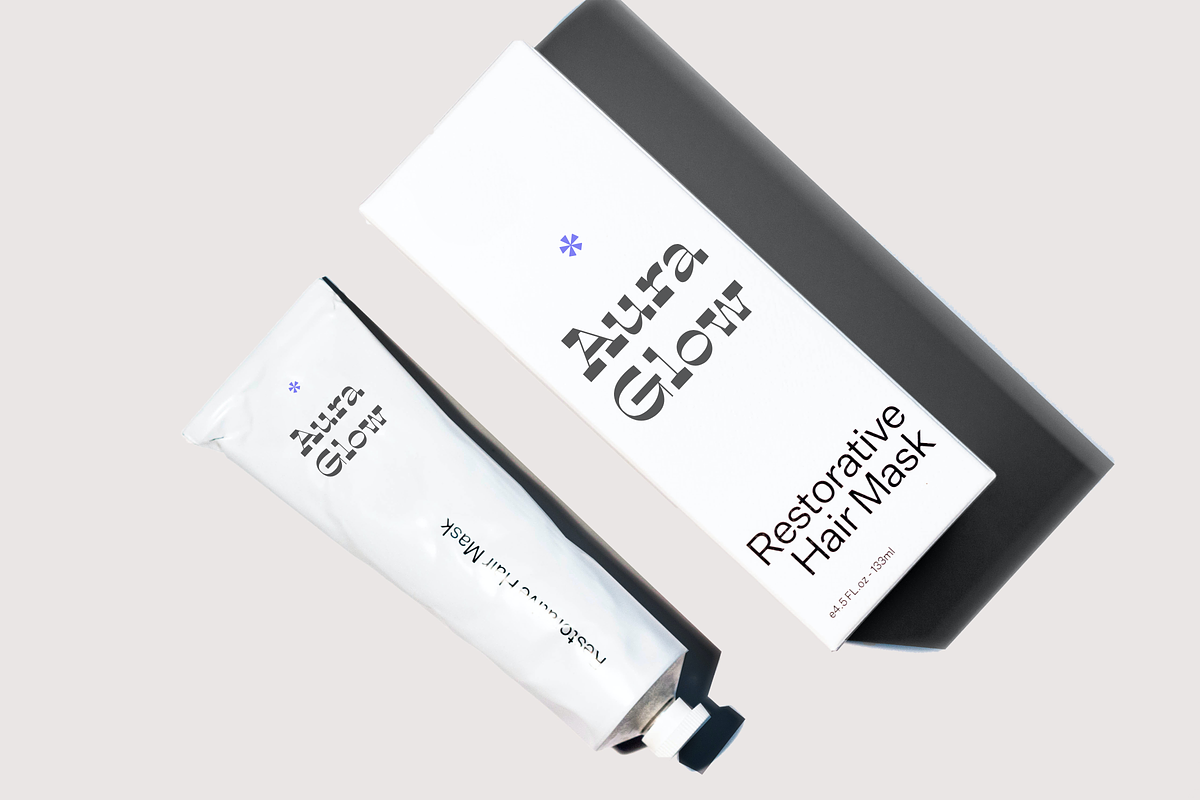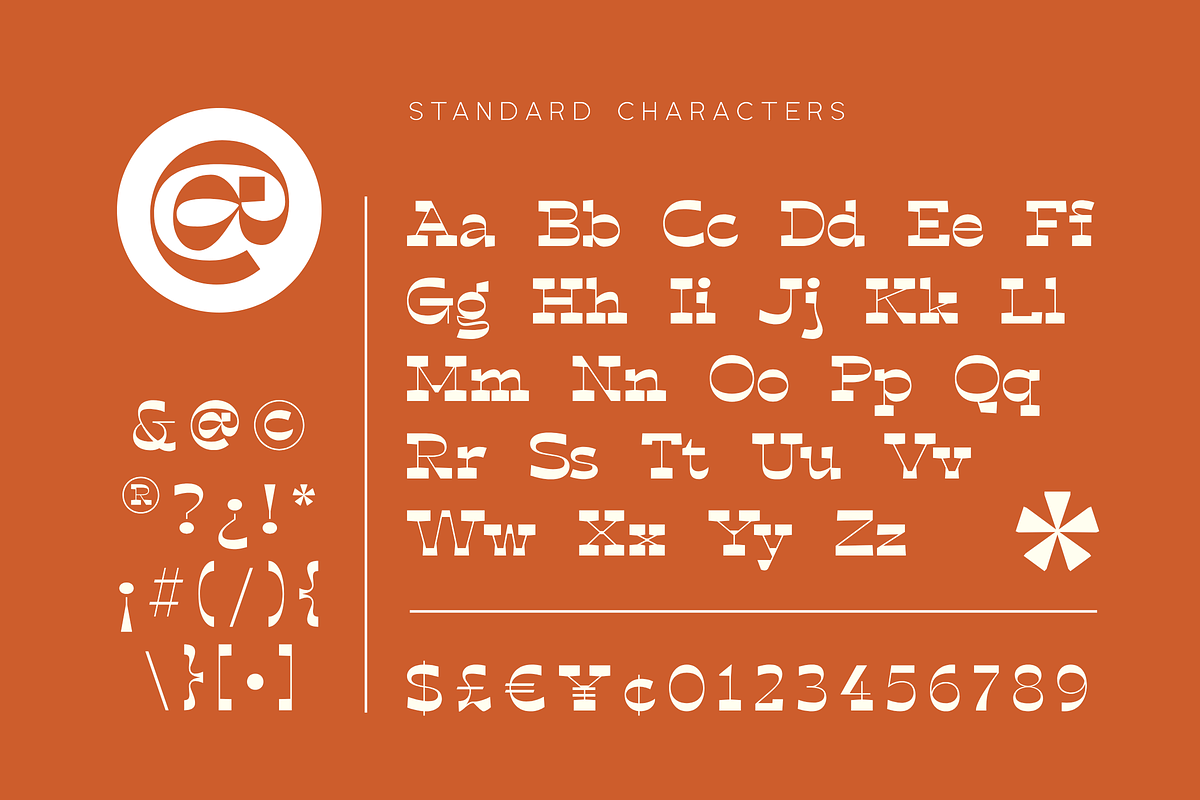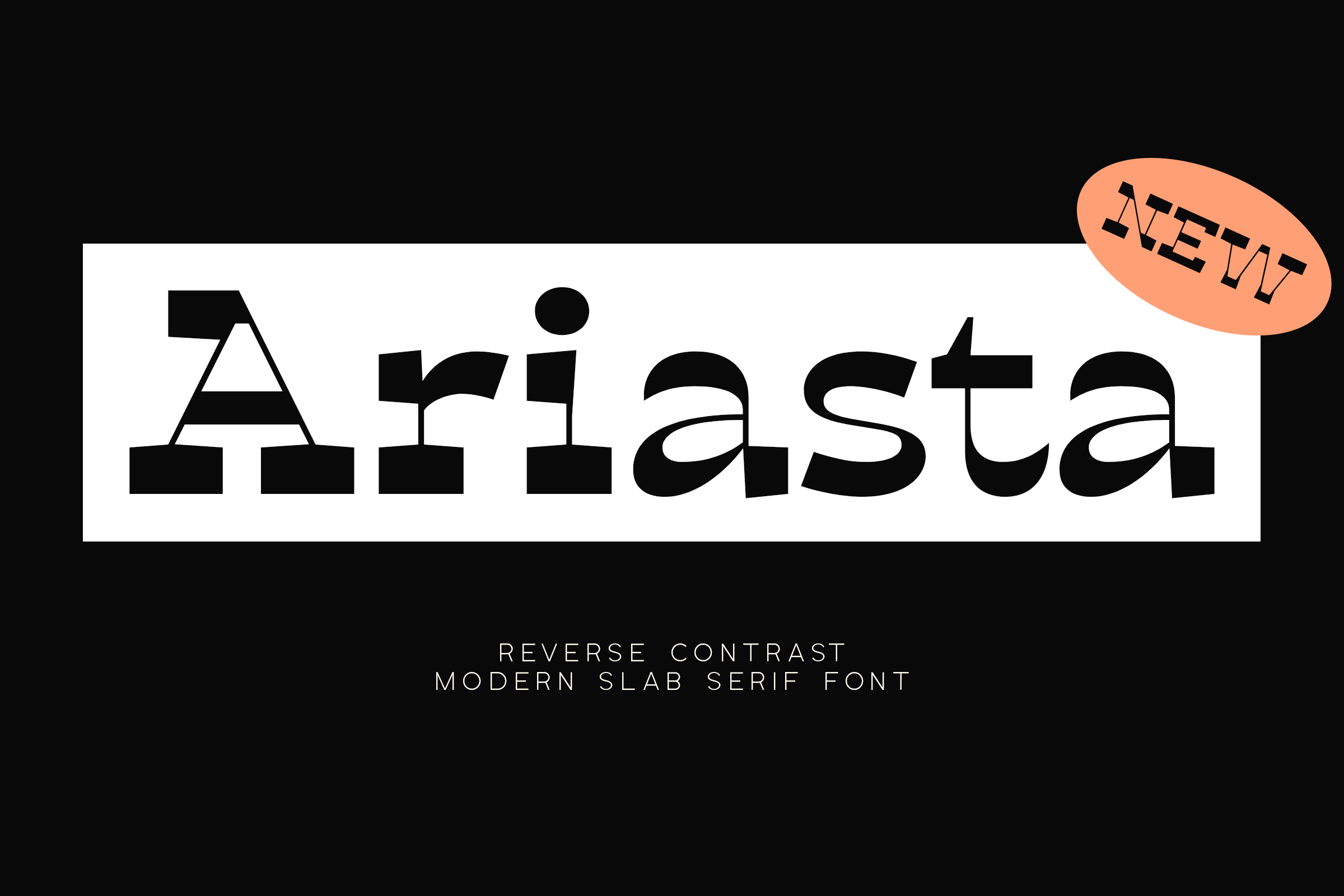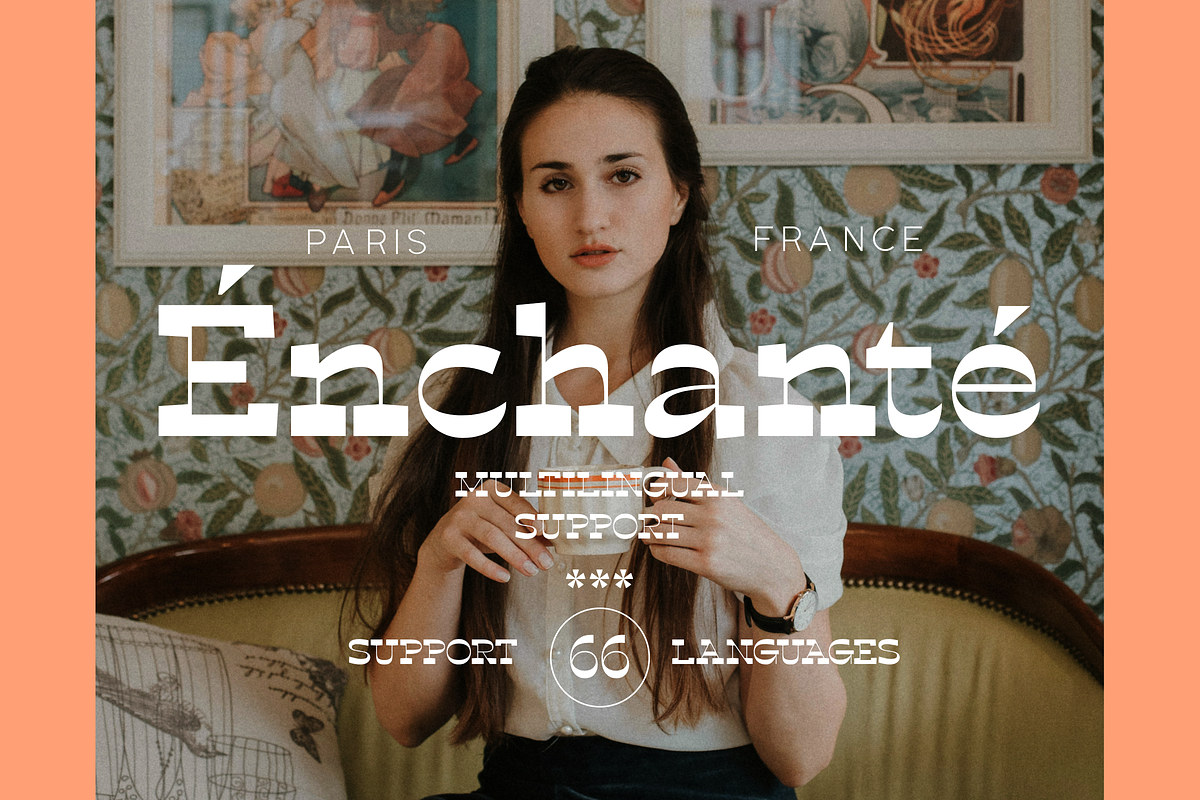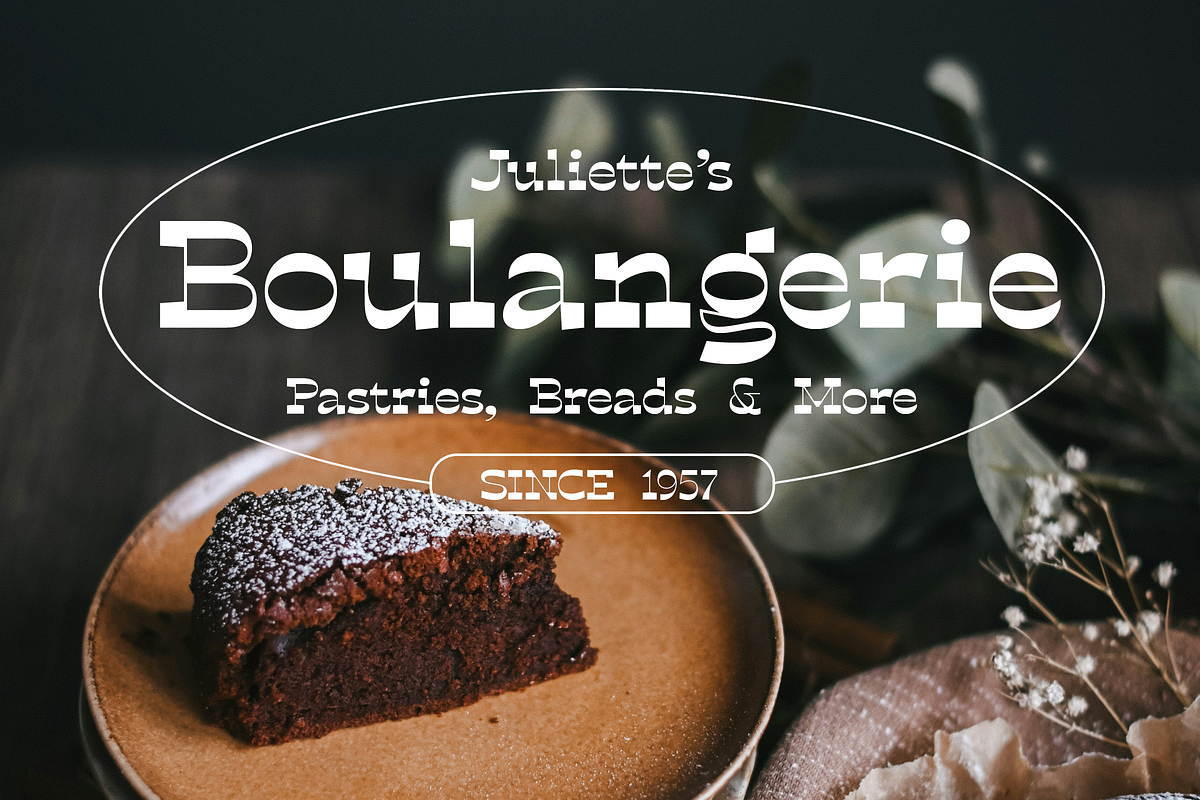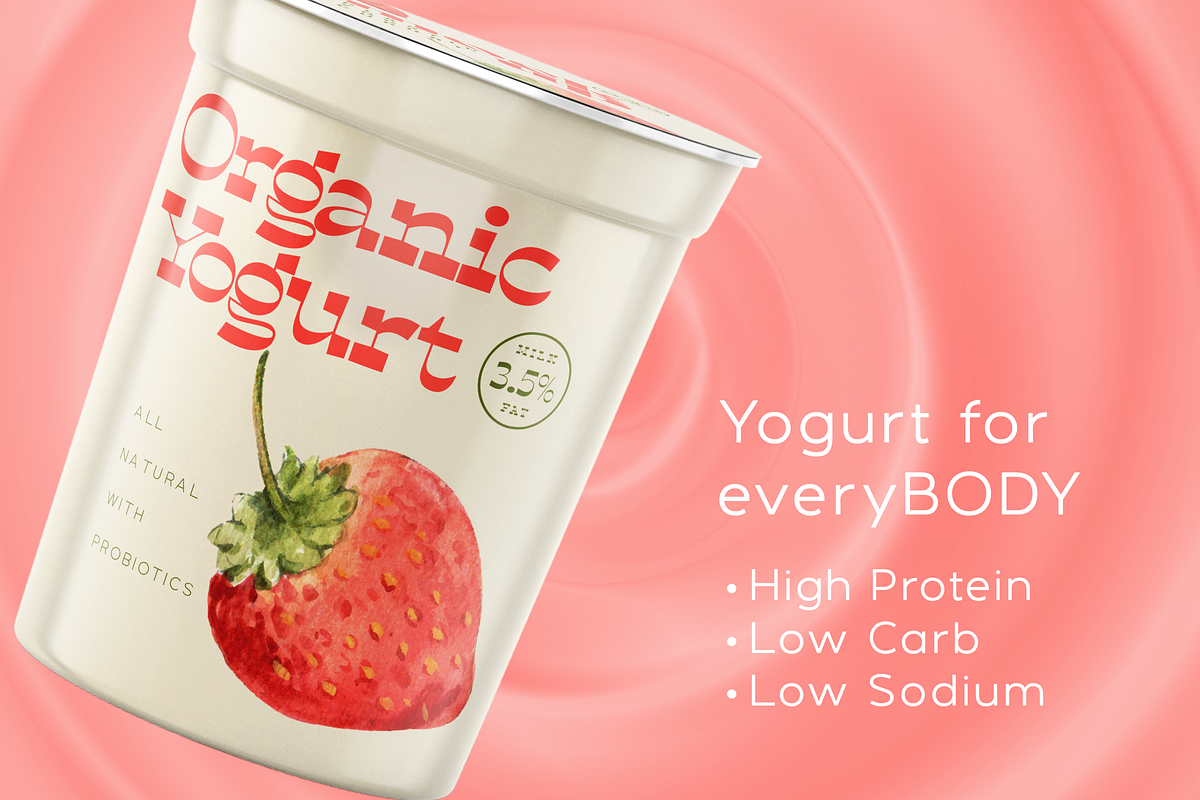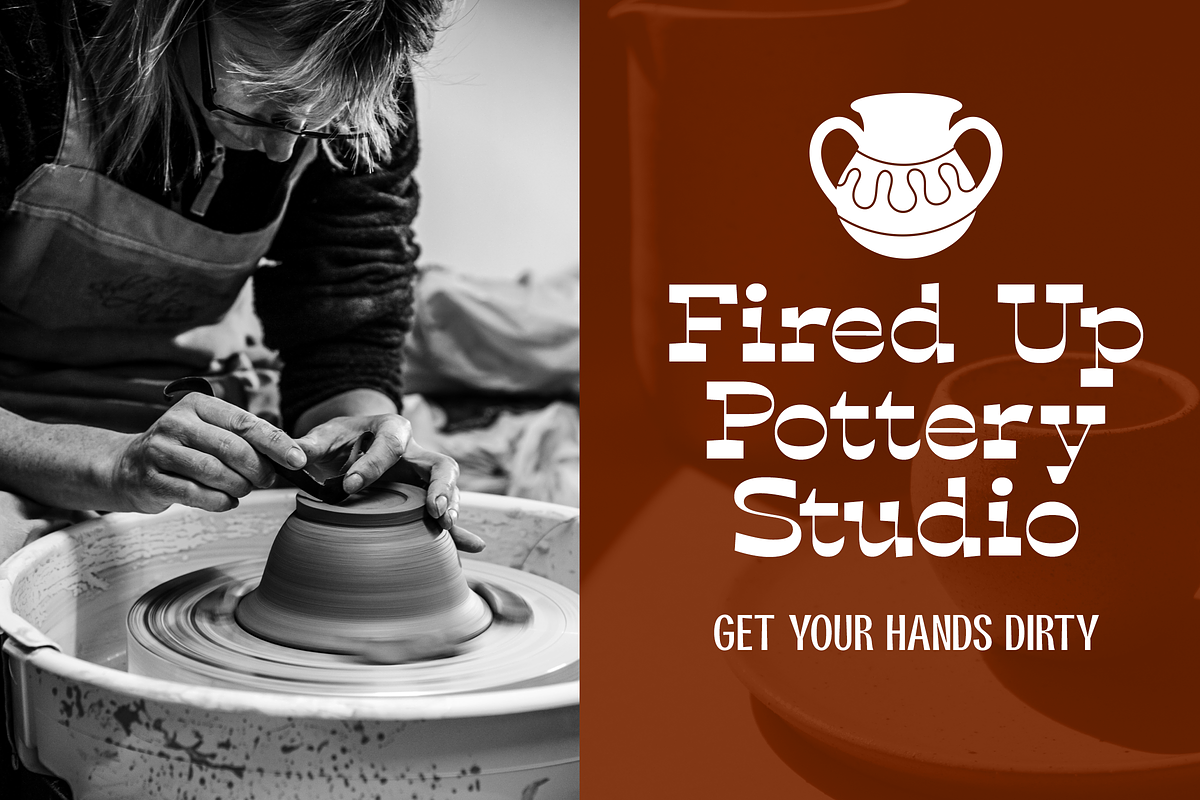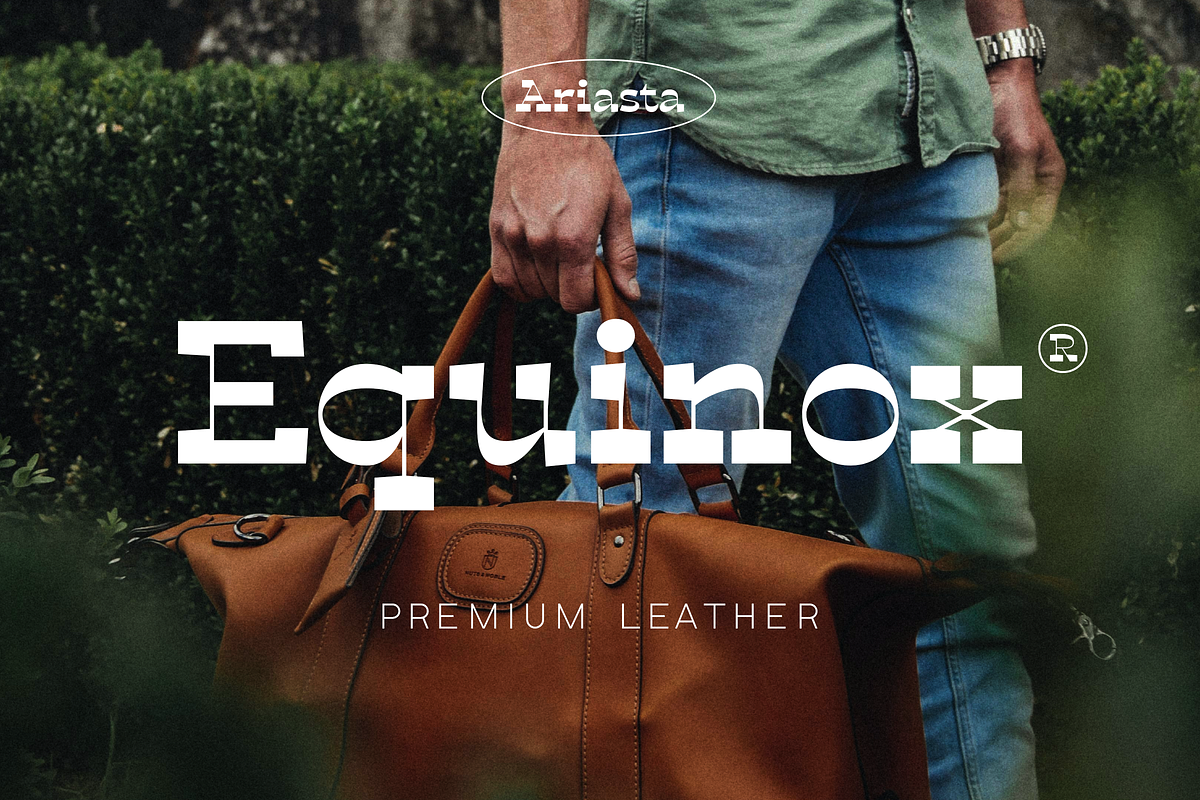
Ariasta - Modern Slab Serif Font
Ariasta is a cool reverse contrast slab serif display font that adapts a traditional western style for use in modern designs.
It's contrasting thickness makes it a great choice for unorthodox designs that need to stand out from the crowd.